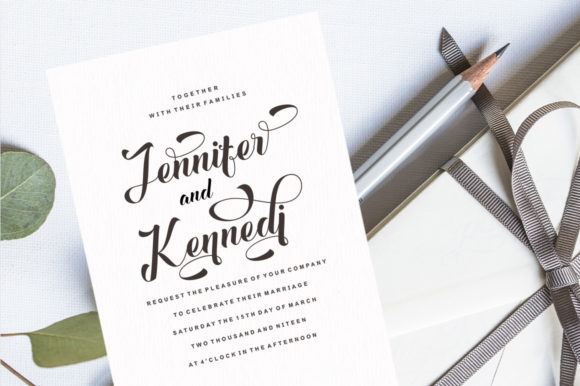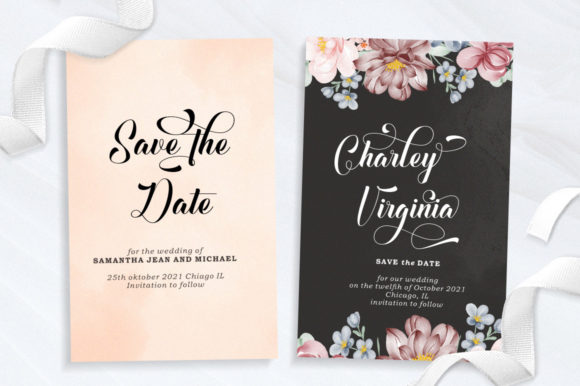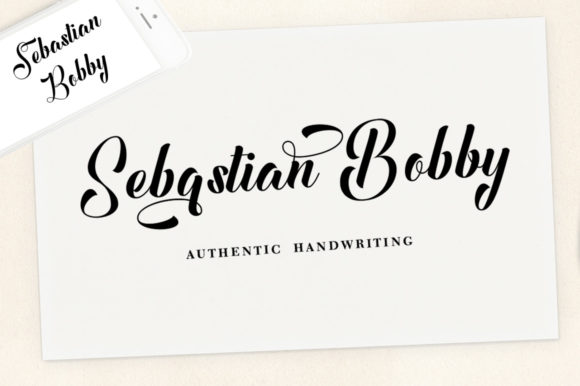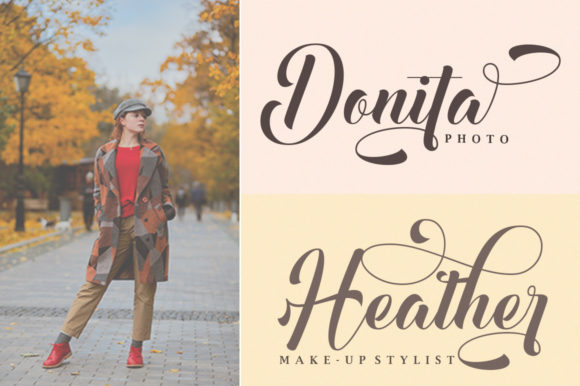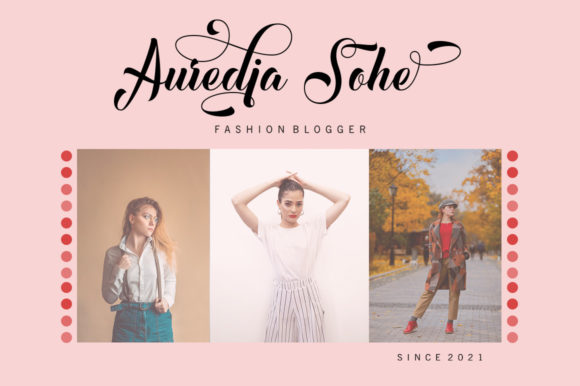
About Virginia Font
Virginia is an exquisite calligraphic script font that effortlessly captures the essence of elegance and style. With its multiple baselines and graceful letterforms, this font adds a touch of sophistication to a wide array of design projects.
For logos, Virginia brings a sense of refined artistry. Its delicate strokes and flowing lines create a visually captivating logo that embodies both professionalism and aesthetic appeal. Whether it’s for a high-end brand or a boutique business, Virginia’s calligraphic charm elevates your logo design to new heights.
Magazines come to life with the addition of Virginia. Its clean and dainty appearance adds a touch of luxury to editorial layouts, making your content visually engaging and pleasing to the eye. The font’s varied baselines create an intriguing rhythm throughout your magazine pages, enhancing the overall reading experience.
When it comes to menus and invitations, Virginia shines as the perfect choice. Its subtle and elegant script conveys a sense of sophistication that complements formal events and special occasions. Whether you’re designing a wedding invitation or a restaurant menu, Virginia’s calligraphic beauty adds a touch of class that leaves a lasting impression.
Wedding and greeting cards are transformed into works of art with Virginia’s graceful strokes. The font’s unique baselines create a sense of movement and rhythm that enhances the sentiment of your heartfelt messages. From romantic wedding cards to heartfelt birthday greetings, Virginia lends an air of elegance to every word.
Packaging and labels take on a new level of charm with Virginia’s calligraphic flair. Its clean and dainty design adds a touch of luxury to product packaging, making your items stand out on the shelves. The font’s PUA encoding allows you to easily access its glyphs and swashes, giving you the flexibility to create custom labels that capture your brand’s essence.
Apparel and t-shirt designs benefit from Virginia’s unique style as well. Its subtle yet impactful appearance adds a touch of sophistication to clothing items, making them not only comfortable to wear but also visually appealing. Virginia’s versatility ensures that it complements a variety of design concepts and aesthetics.
In conclusion, Virginia is a calligraphic script font that embodies elegance, style, and versatility. Its multiple baselines, subtle design, and clean letterforms make it a perfect choice for logos, magazines, menus, invitations, cards, packaging, labels, and apparel. With its PUA encoding, accessing its glyphs and swashes is a breeze, allowing you to infuse your designs with the charm and grace of Virginia’s calligraphic beauty.